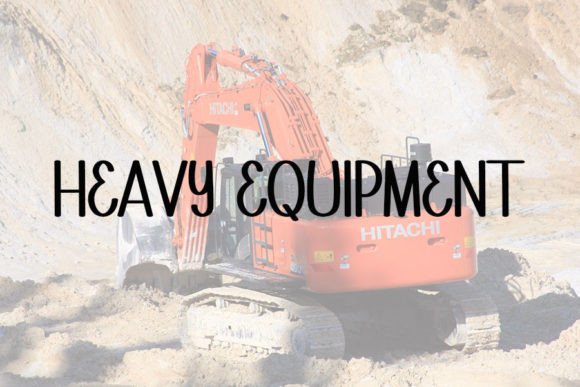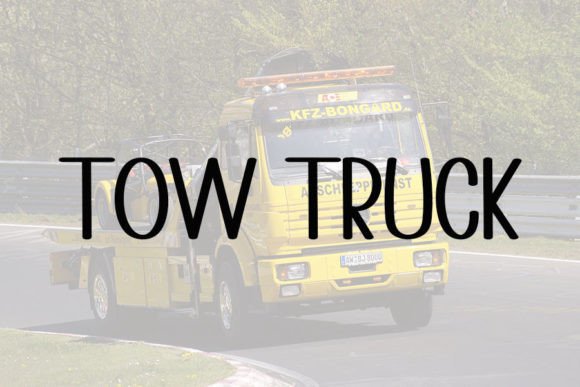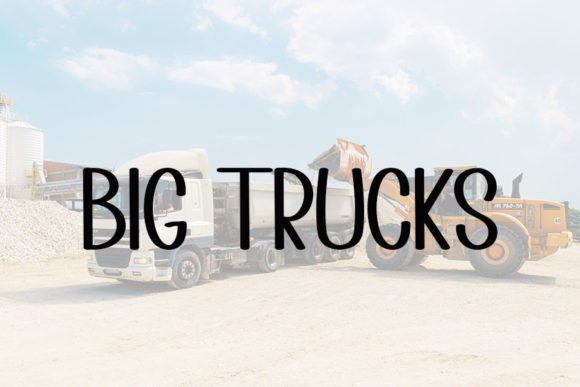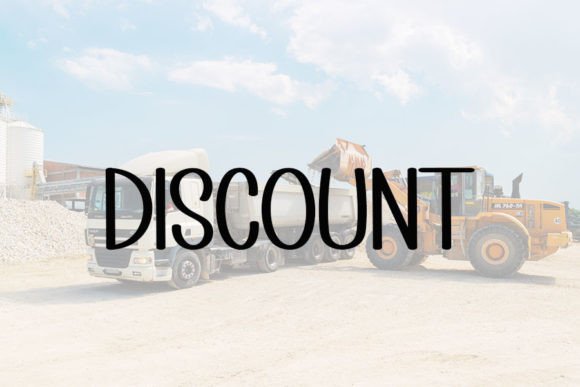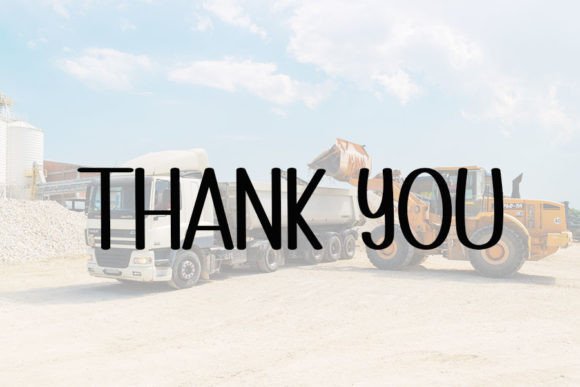
Introducing Excavator Font: The Perfect Handwritten Font for Your Design Projects
Are you tired of using the same old fonts for your design projects? Look no further! Excavator Font is a beautiful handwritten font that is sure to take your designs to the next level. With its casual touch and incredibly distinct style, Excavator Font is perfect for designers and crafters who want to add a personal touch to their work.
What is Excavator Font?
Excavator Font is a neat and beautiful handwritten font that is described by its casual touch. It’s a font that is perfect for creating spectacular designs that stand out from the crowd. With its unique and timeless style, Excavator Font is sure to fall in love with its users. The font is designed to be versatile and can be used for a variety of projects, from creative crafts to digital designs.
Key Features of Excavator Font
• Handwritten style: Excavator Font has a beautiful handwritten style that gives it a personal touch.
• Casual touch: The font has a casual touch that makes it perfect for creative projects.
• Distinct style: Excavator Font has an incredibly distinct style that sets it apart from other fonts.
• Timeless: The font has a timeless quality that makes it suitable for a wide range of projects.
• Versatile: Excavator Font can be used for a variety of projects, from digital designs to creative crafts.
Why Use Excavator Font?
There are many reasons why you should use Excavator Font for your design projects. Here are a few:
• Add a personal touch: Excavator Font is a handwritten font that adds a personal touch to your designs.
• Stand out from the crowd: The font’s unique style makes it perfect for designers who want to create designs that stand out from the crowd.
• Perfect for creative projects: Excavator Font is perfect for creative projects, such as crafts, DIY projects, and digital designs.
• Easily readable: The font is easily readable, making it perfect for designs that require a clear and concise message.
Design Ideas Using Excavator Font
Here are a few design ideas that you can use Excavator Font for:
• Creative crafts: Use Excavator Font to create signs, cards, and other creative crafts.
• Digital designs: Use Excavator Font to create digital designs, such as social media graphics, blog posts, and website headers.
• DIY projects: Use Excavator Font to create signs, labels, and other DIY projects.
• Stationery: Use Excavator Font to create stationery, such as notebooks, journals, and greeting cards.
In conclusion, Excavator Font is a beautiful handwritten font that is perfect for designers and crafters who want to add a personal touch to their work. With its casual touch and incredibly distinct style, Excavator Font is sure to fall in love with its users. Whether you’re working on a creative craft or a digital design, Excavator Font is the perfect choice. So why wait? Download Excavator Font today and start creating spectacular designs!